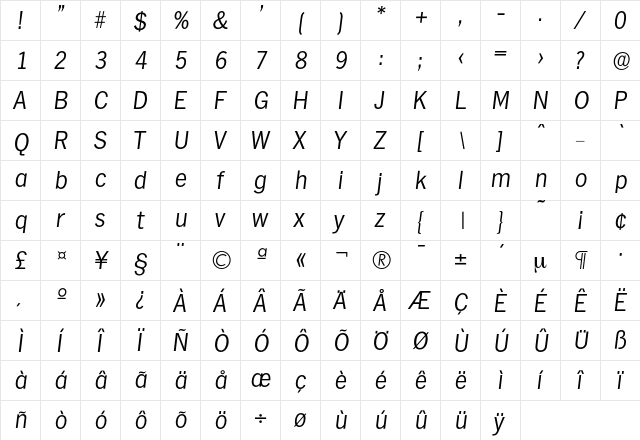
Hamburg-LightIta Regular
Design Context for Hamburg-LightIta Typeface
Hamburg-LightIta takes a measured approach to typography — its balanced proportions and neutral character make it a reliable workhorse for both digital and print work. Its slender proportions lend an understated elegance to any composition.